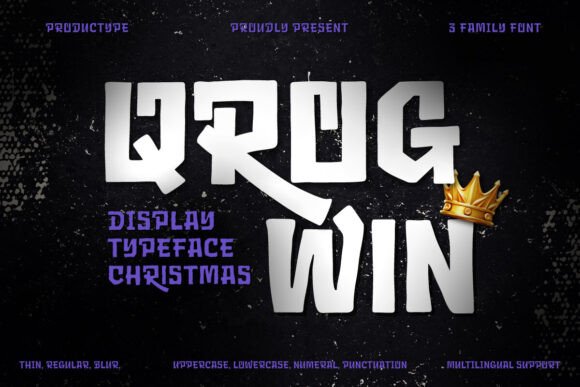
Introducing Qrog Win: The Ultimate Christmas Display Font
Are you looking for a font that captures the magic and warmth of the holiday season? Look no further than Qrog Win, the perfect Christmas display font for all your festive projects. With its playful curves and festive charm, Qrog Win is sure to add a merry touch to your Christmas-themed designs, making them sparkle with holiday cheer.
Key Features of Qrog Win
- Custom-designed for Christmas and holiday themes: Qrog Win is a unique and original font, specifically created for the holiday season. Its design ensures that your Christmas projects stand out from the crowd.
- Playful, festive letterforms with a warm and inviting feel: The font features playful curves and lines that evoke the joy and warmth of Christmas. Its friendly and approachable style makes it perfect for a wide range of holiday projects.
- Perfect for Christmas cards, holiday posters, gift tags, and festive branding: Qrog Win’s versatility makes it suitable for various applications, from traditional Christmas cards to modern digital graphics.
Ideal Uses for Qrog Win
Qrog Win is an incredibly versatile font that can be used in a variety of holiday-themed projects. Here are some ideal uses for this fantastic font:
- ✓ Christmas greeting cards: Create beautiful and heartwarming Christmas cards that will make your loved ones feel special.
- ✓ Holiday party invitations: Design festive and fun party invitations that set the tone for a memorable celebration.
- ✓ Festive product packaging: Add a touch of holiday magic to your product packaging and make your gifts stand out.
- ✓ Seasonal event logos: Create eye-catching logos for your holiday events, such as Christmas markets, winter festivals, or holiday parties.
- ✓ Winter-themed social media graphics: Design engaging and festive social media graphics that capture the spirit of the season.
Why Choose Qrog Win?
Qrog Win is the perfect choice for designers looking to bring joy, warmth, and a bit of whimsy to their holiday projects. Here are some reasons why:
- Unique and original design: Qrog Win is a one-of-a-kind font that will make your designs stand out from the crowd.
- Jolly and cheerful style: The font’s playful and festive style will add a touch of holiday cheer to your designs.
Tips for Using Qrog Win
Here are some tips for getting the most out of Qrog Win:
- Experiment with different colors and textures: Qrog Win looks great in a variety of colors and textures, so don’t be afraid to experiment and find the perfect combination for your design.
- Pair with other fonts: Qrog Win can be paired with other fonts to create a unique and interesting design.
- Use in combination with holiday-themed graphics: Qrog Win looks great when used in combination with holiday-themed graphics, such as snowflakes, holly, or Christmas trees.
Qrog Win is the perfect Christmas display font for designers looking to add a touch of holiday magic to their projects. With its playful curves and festive charm, Qrog Win is sure to make your designs sparkle with holiday cheer. So why wait? Celebrate the season in style and design with Qrog Win!
- What is Qrog Win?: Qrog Win is a custom-designed Christmas display font, perfect for adding a touch of holiday magic to your projects.